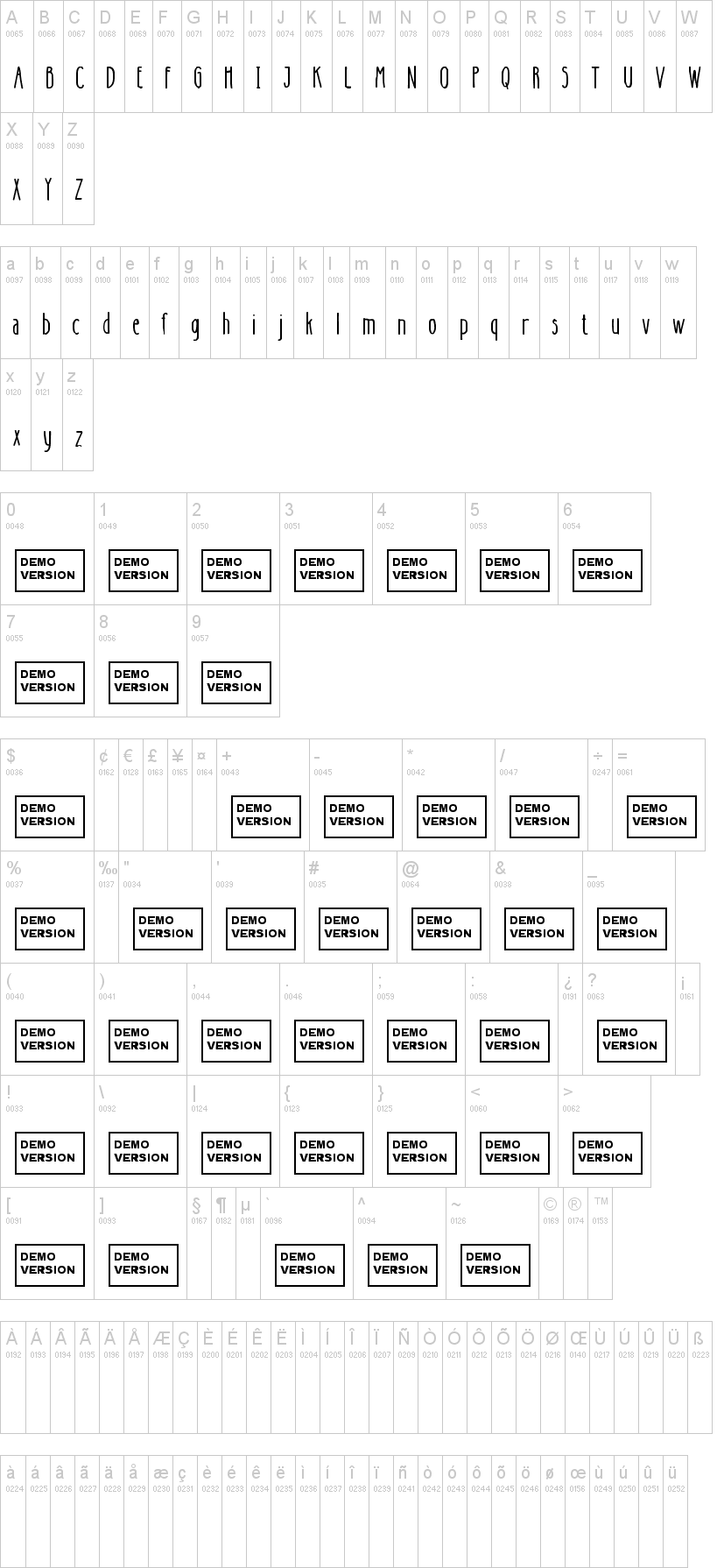
Better Together Condensed is one of 4 fonts of Better Together Family. Its a friendly, fun and quirky font which will give your project illustrative handmade feel.